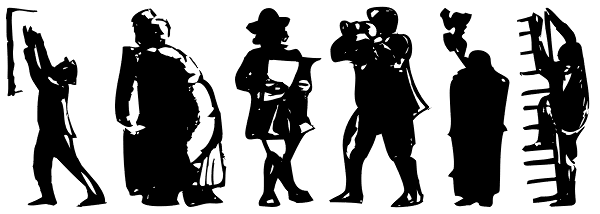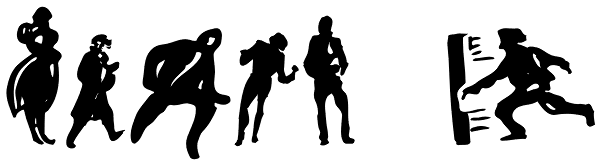
Ombres
Very close thematically and in style to the rest of our “whimbats” (the Absurdies, Bizarries, Illustries, Genteta and Whimsies series), the Ombres contain a number of peculiar silhouettes and illustrations of people that range from cute to scary...
Ombres 1
Ombres 2
Ombres 3